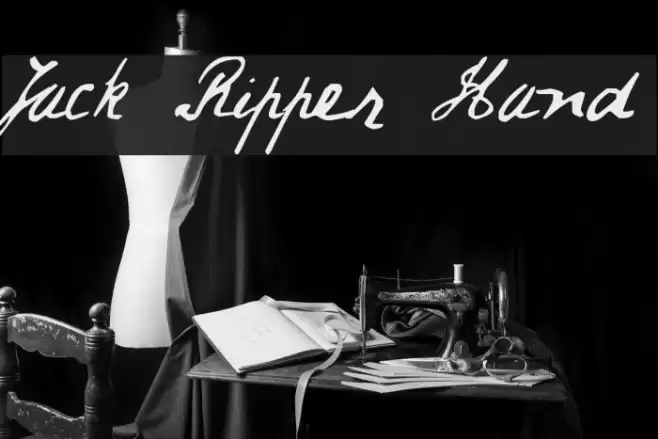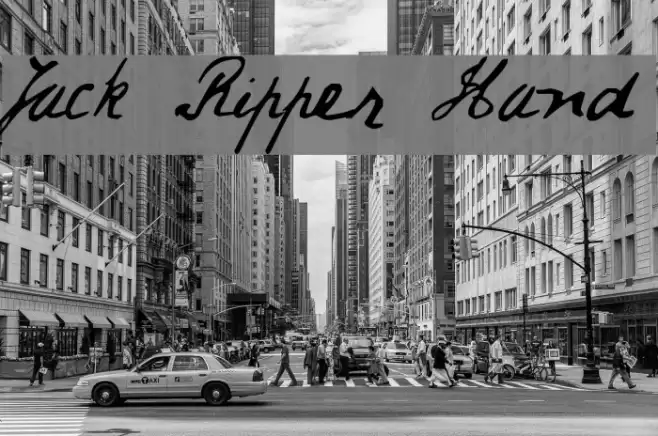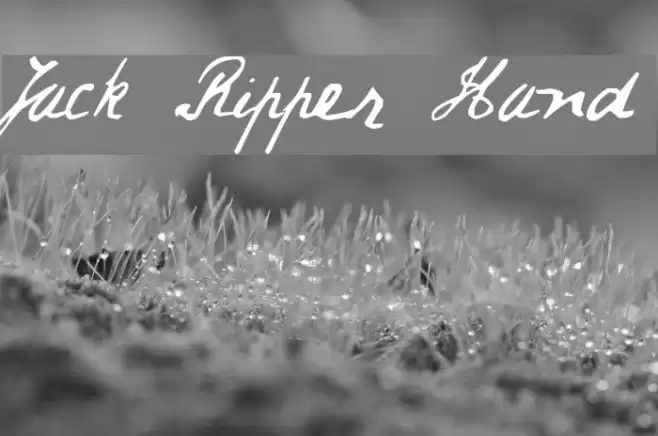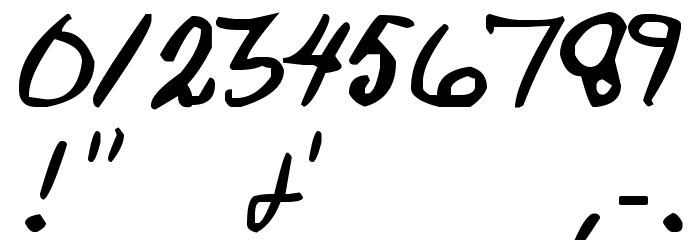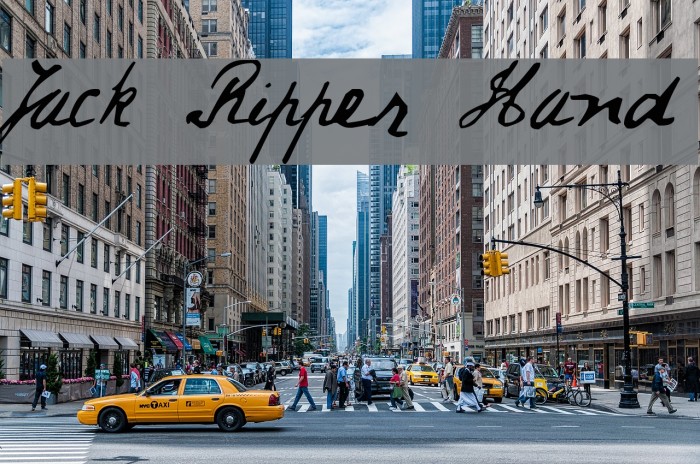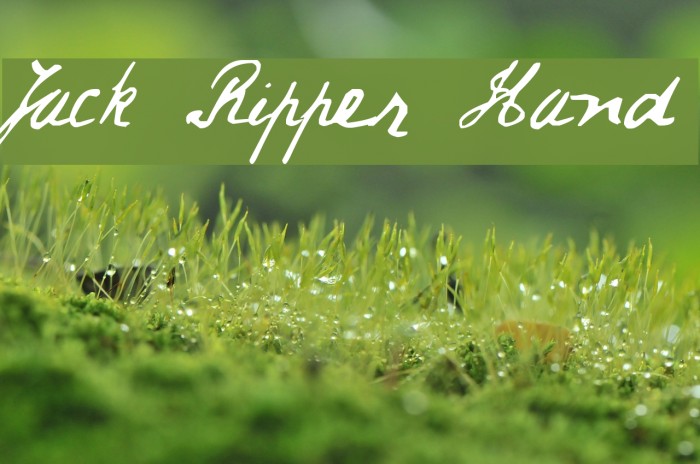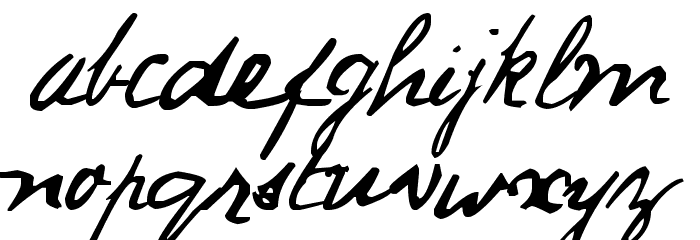
Jack Ripper Hand Font
Jack Ripper Hand Description
This font exhibits a distinctive handwritten style with a fluid, cursive appearance. The letters are connected, creating a seamless flow that mimics natural handwriting. The uppercase letters are bold and slightly slanted, while the lowercase letters maintain a consistent size and style, enhancing readability. Numbers and special characters are crafted with the same attention to detail, ensuring uniformity across all characters. The strokes are thick, providing a strong visual presence, yet the overall design retains an elegant and artistic flair. This font is ideal for projects that require a personal touch, such as invitations, greeting cards, or artistic branding.
A bold, cursive handwritten font with fluid, connected letters from Uncategorized fonts.
- Proposed Projects: Ideal for invitations, greeting cards, artistic branding, and personal projects.
- Character Spacing: Tight
- Use Case: Logos, Headlines, Artistic projects